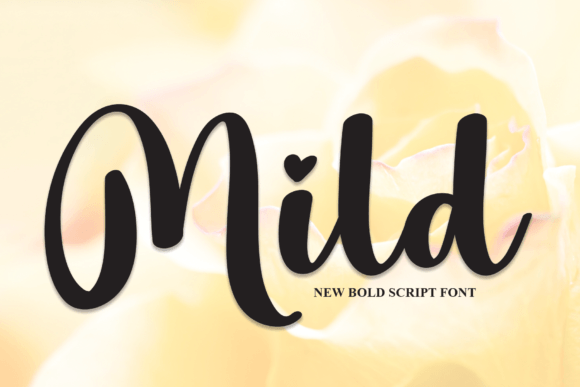
Introducing Mild Font, the Exquisite Script Font Family!
Mild Font is a captivating journey into the realm of handwritten elegance. Its delicate strokes and graceful curves evoke a sense of timeless beauty and charm, making it the perfect choice for designers and creatives seeking to infuse their projects with a touch of sophistication and warmth.
Immerse yourself in the world of Mild Font, where words come alive with an undeniable personality. Whether you're crafting personalized invitations, designing captivating logos, or creating eye-catching social media posts, Mild Font will elevate your designs to new heights.
Discover the versatility of Mild Font as it effortlessly adapts to a myriad of design needs. From heartfelt wedding invitations that exude romance to eye-catching advertisements that demand attention, Mild Font is the ultimate chameleon, transforming your ideas into visual masterpieces.
Step into the spotlight with Mild Font, the font that adds a touch of timeless elegance to your creations. Its ability to effortlessly blend with various design styles and themes makes it a must-have for designers who value versatility and sophistication.
With Mild Font as your creative companion, you'll embark on a journey of design excellence. Let your imagination soar as you create captivating logos that exude professionalism, design product packaging that captivates and enchants, and craft digital designs that leave a lasting impression.
Mild Font isn't just a font; it's an experience. An experience that ignites your creativity, fuels your passion for design, and elevates your projects to new levels of brilliance. Embrace the beauty of Mild Font and embark on a creative odyssey that will leave you spellbound. Embrace Mild Font today and transform your design dreams into a breathtaking reality!